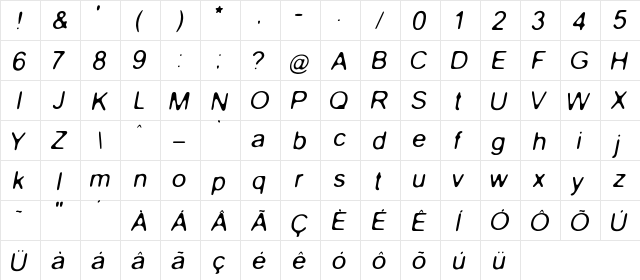
Gaussian Blur Italic Regular
Gaussian Blur Italic offers clean, dependable letterforms without strong stylistic allegiance, making it a practical choice for designers who need flexibility. The dynamic lean of this cut emphasises speed and emphasis in any layout.